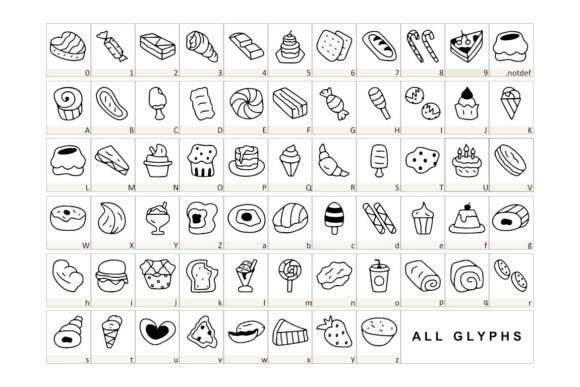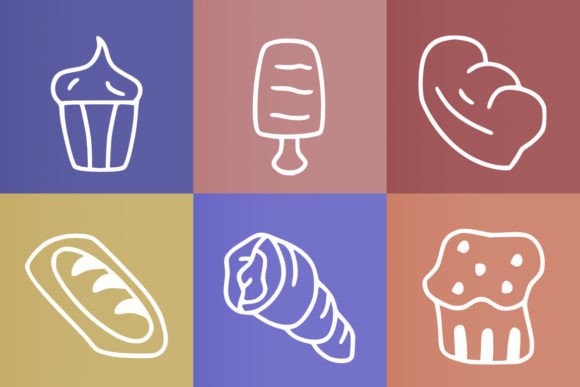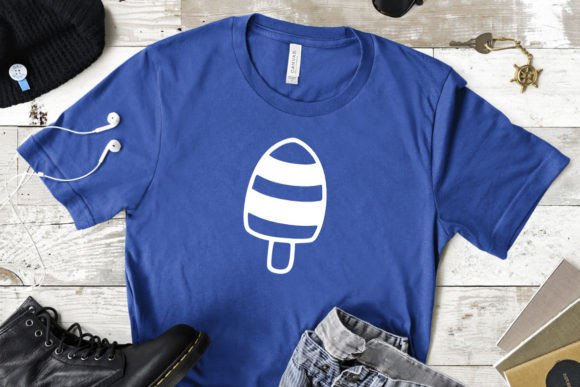
Get Ready to Spice Up Your Designs with Delicious Dishes Font
You know that feeling when you’re brainstorming ideas for a new project and suddenly, everything comes together? The colors, the typography, the overall vibe – it’s like a match made in heaven! For designers, this moment is what drives creativity and pushes us to create something truly special. And that’s exactly where the Delicious Dishes Font comes in – a cute and useful dingbats font that’s perfect for adding that extra oomph to your designs.
Whether you’re creating stickers, posters, t-shirts, or cards, the Delicious Dishes Font is a valuable addition to your design toolkit. Its versatility and charm make it a go-to choice for designers looking to add a playful touch to their projects. With the Delicious Dishes Font, you’ll be able to bring your designs to life and make them truly stand out from the crowd.
- Unique Characteristics: This font features a playful, hand-drawn design with a mix of bold lines and smooth curves, making it perfect for creating eye-catching food-related designs.
Designer Review: Delicious Dishes Font
I recently had the chance to work with the Delicious Dishes Font, and I must say, it’s a unique and attention-grabbing choice. Here’s my honest take on its strengths and weaknesses.
- It’s perfect for food-related projects, as the name suggests. The font’s design is playful, fun, and evokes a sense of appetite.
- The bold and italic styles are well-crafted and add a nice touch to headings and emphasis.
- The font is highly legible, even at smaller sizes, making it suitable for a wide range of applications.
- The font’s design can be overwhelming for certain types of content, such as long blocks of text or formal documents.
- The regular style can feel a bit thin and may not be suitable for large display sizes.
- The font doesn’t include a comprehensive character set, which may be a concern for projects that require support for non-English languages.
Overall, the Delicious Dishes Font is a great choice for projects that require a fun, playful, and attention-grabbing aesthetic. However, it may not be the best fit for more formal or traditional applications. With its strengths and weaknesses in mind, I’d recommend using this font judiciously to add a touch of whimsy to your designs.
The Delicious Dishes Font is ideal for food-related businesses, such as restaurants, cafes, and bakeries. It can also be used by food bloggers, influencers, and photographers to add a touch of personality to their content.